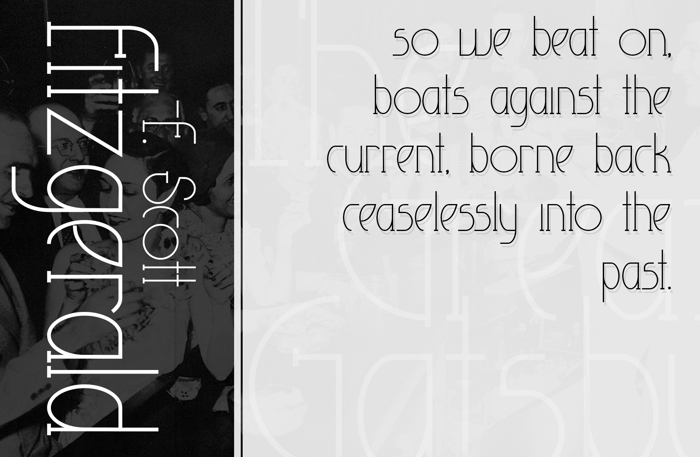
The Eighteenth Amendment Light Font
This font is named "The Eighteenth Amendment" because I wanted it to have a 1920's prohibition/speakeasy/art deco vibe.